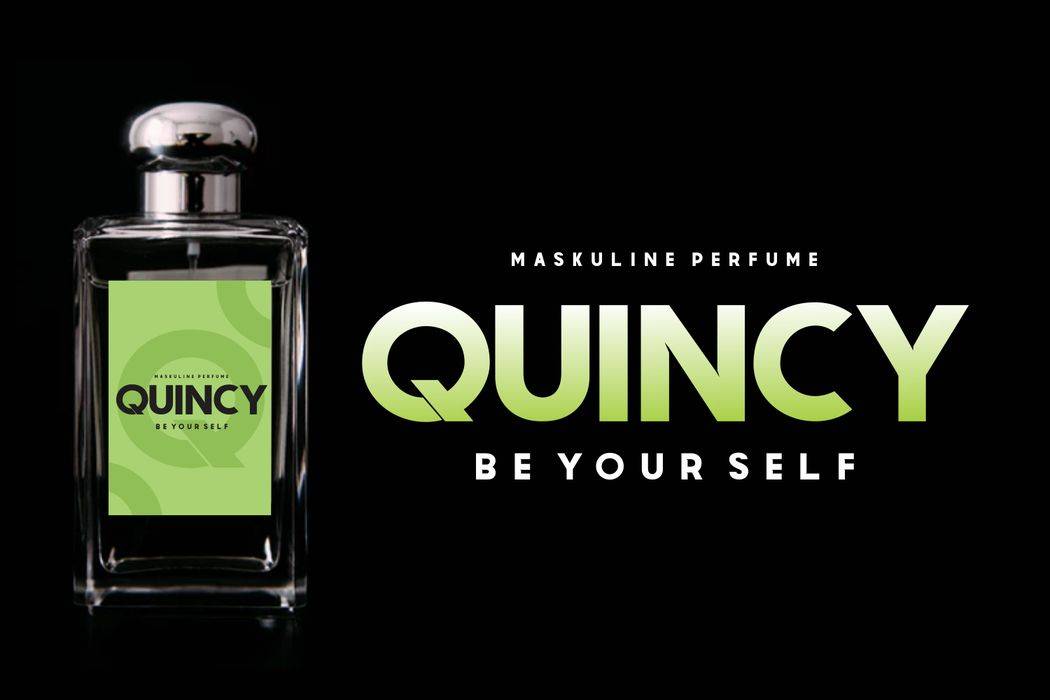
Bequind is a bold, geometric sans serif font characterized by strong, clean lines and a modern, slightly condensed appearance. Its high x-height and distinctive letterforms, like the angled cut in the 'Q' and the single-story 'a,' give it a dynamic and contemporary feel, making it ideal for striking headlines, branding, and editorial use where clarity and impact are key. This font works well for projects seeking a confident, professional look with a touch of modern style.
Bequind Font
About Bequind Font